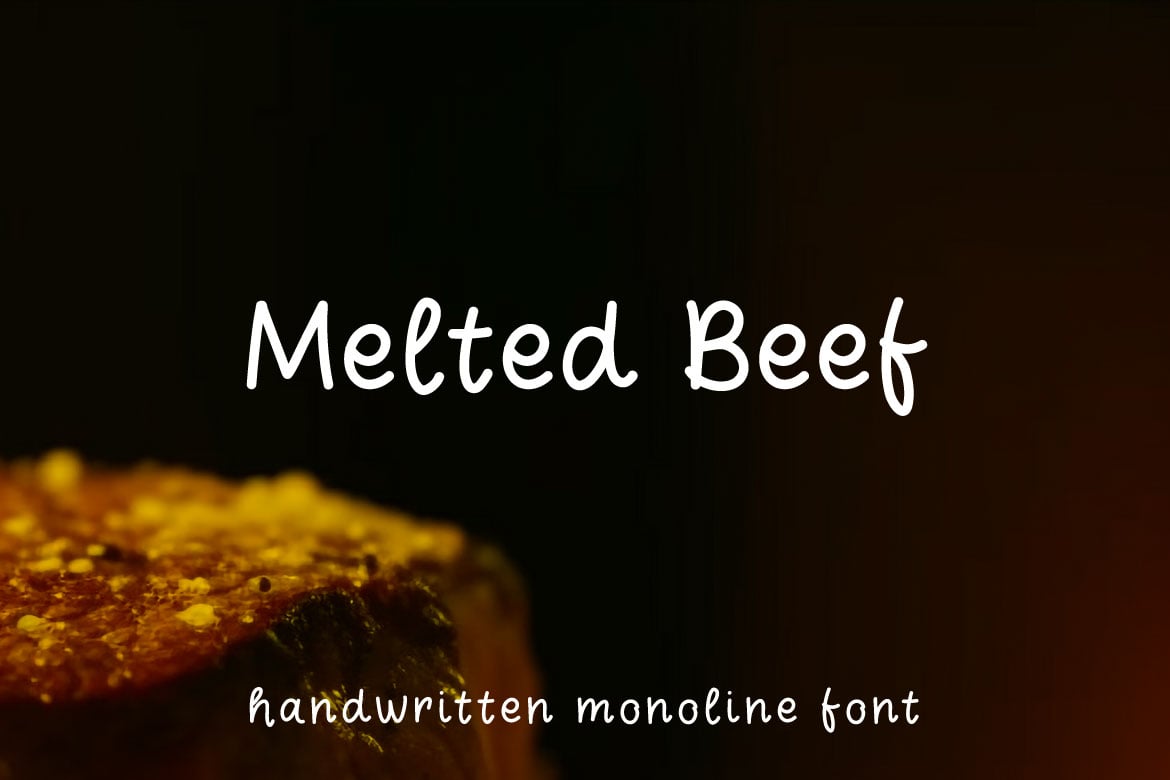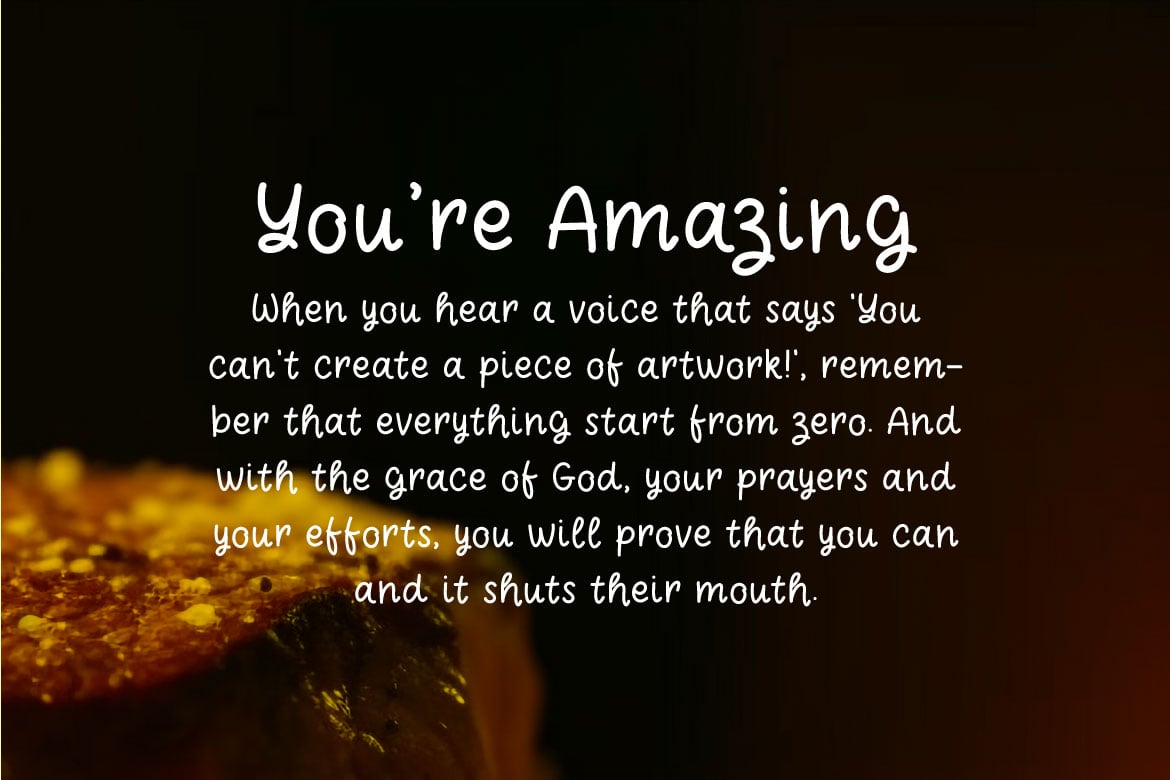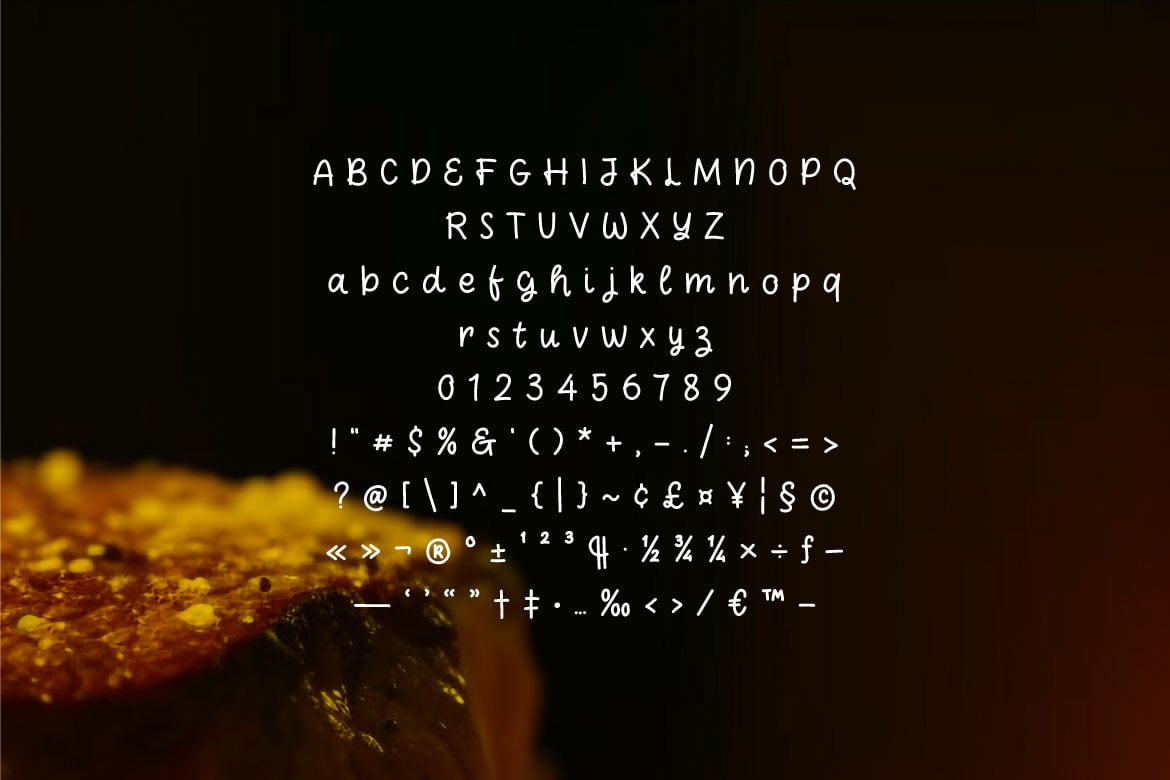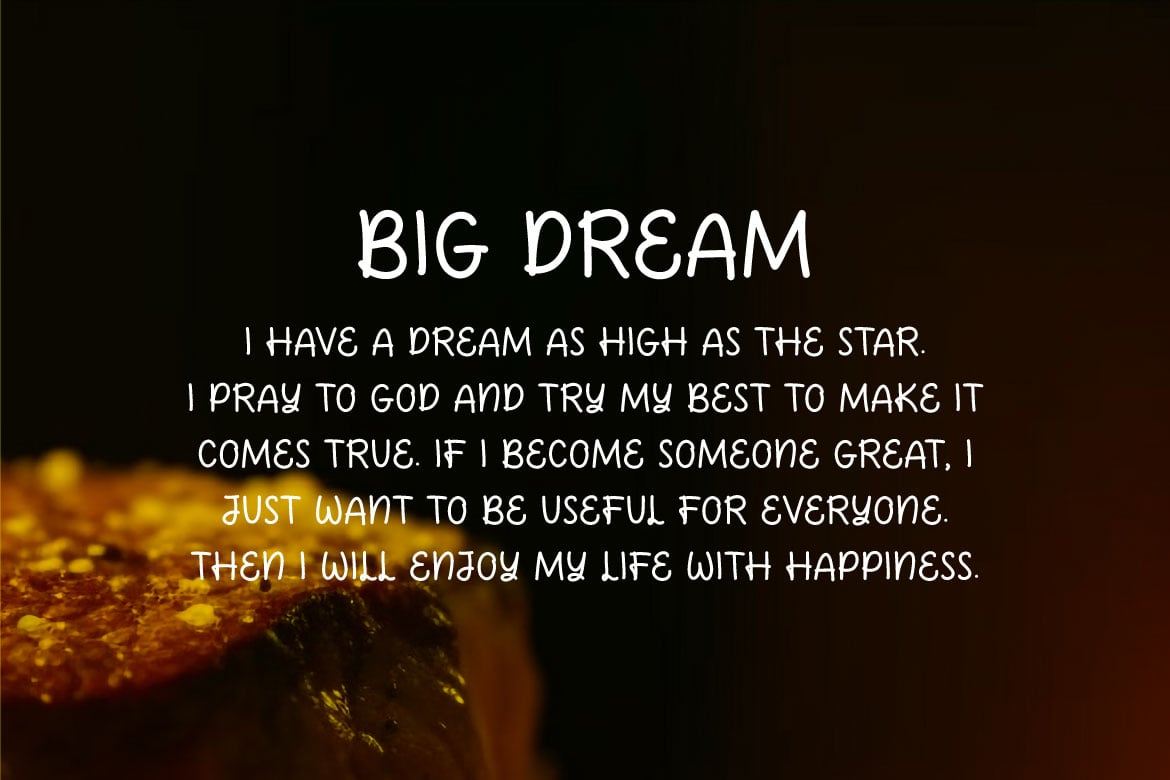
Melted Beef – Handwritten Monoline Font
Meet Melted Beef – Handwritten Monoline Font , a font that capture the essence of effortless charm and simplicity. This font are characterized by uniform stroke widths, giving them a consistent, streamlined appearance. Each letter flows seamlessly into the next, creating a cohesive and harmonious rhythm.
Melted Beef offer a perfect balance of elegance, legibility, and personality. With their clean lines and effortless grace, they bring a touch of handmade beauty to any design endeavor.